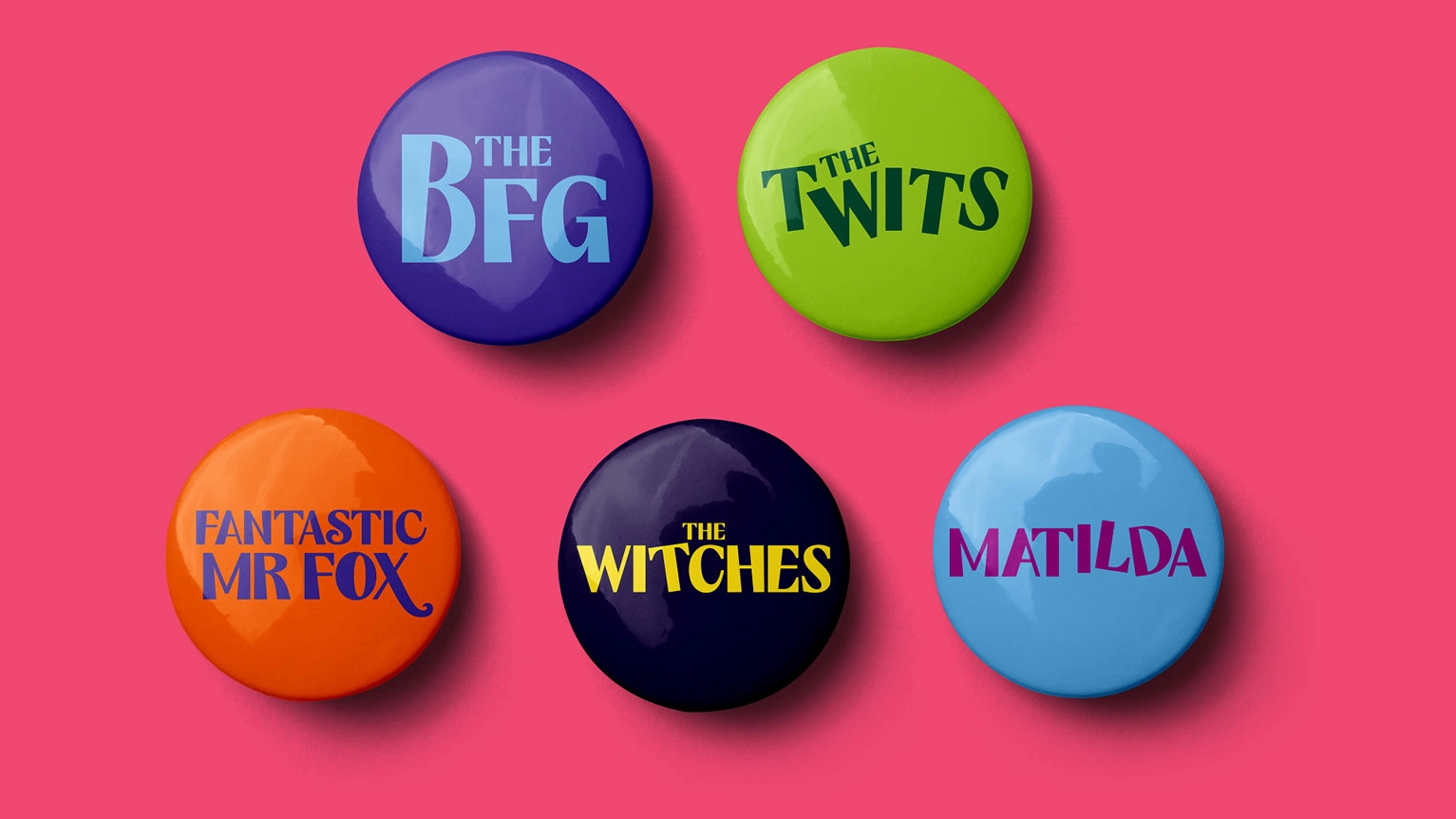
The Roald Dahl stories just got gloriumptious new typography for Netflix
Baxter & Bailey made 20 bespoke logotitles in a project that will brighten up your day.
Roald Dahl's stories have been given brand-new, bespoke typographic identities by design studio Baxter & Bailey, working with the Roald Dahl Story Company (RDSC) and Netflix. The studio created a glorious suite of 20 logotitles, and the result is a real feast for the eyes – playful, bright, characterful and distinctive – and joyfully eccentric.
The work builds directly on the existing RDSC brand identity, originally designed by Emily Oberman, partner at Pentagram's New York office. Central to that identity is a mischievous and inventive typeface, Fantastic Mr. Font, developed by Oberman in collaboration with type foundry Pangram Pangram.
Rather than departing from that foundation, Baxter & Bailey used it as their starting point. They redrew 19 characters from the typeface to give each logotitle its own distinct character but with a sumptuous style that's consistent across the whole set.
The result is a comprehensive typographic toolkit covering all 20 story brands, from Charlie and the Chocolate Factory to The BFG, giving the RDSC flexible, consistent guidance for future creative adaptations, whether for film, theatre, fashion, or beyond.
Nat Bullard, Creative Director & Design Manager at the Roald Dahl Story Company, praised the level of craft: "Baxter & Bailey were a pleasure to work with. They embraced the challenge of bringing each story to life in its own distinctive way while thoughtfully balancing the logotitle set," she said, adding that every detail had been carefully considered in relation to the brand and typography first created by Oberman and her team, and Pangram Pangram.